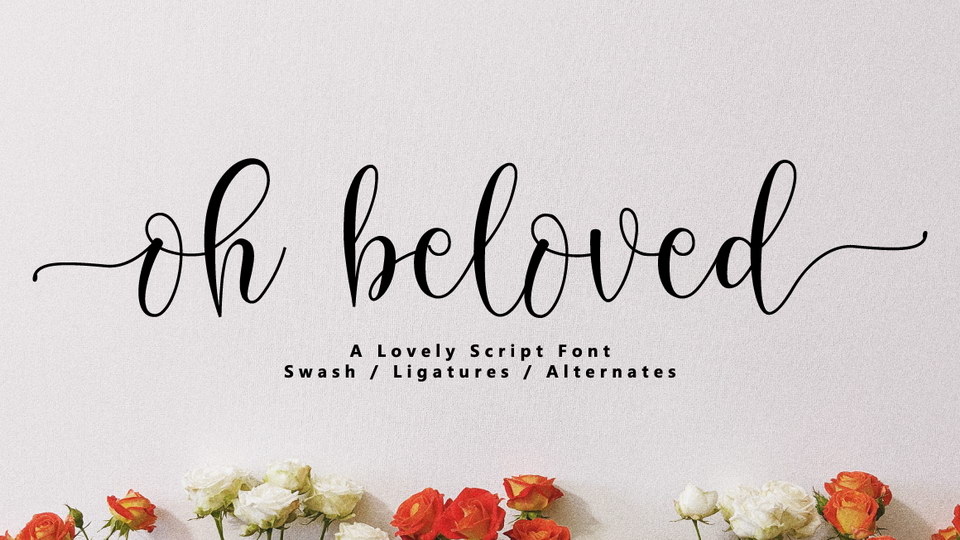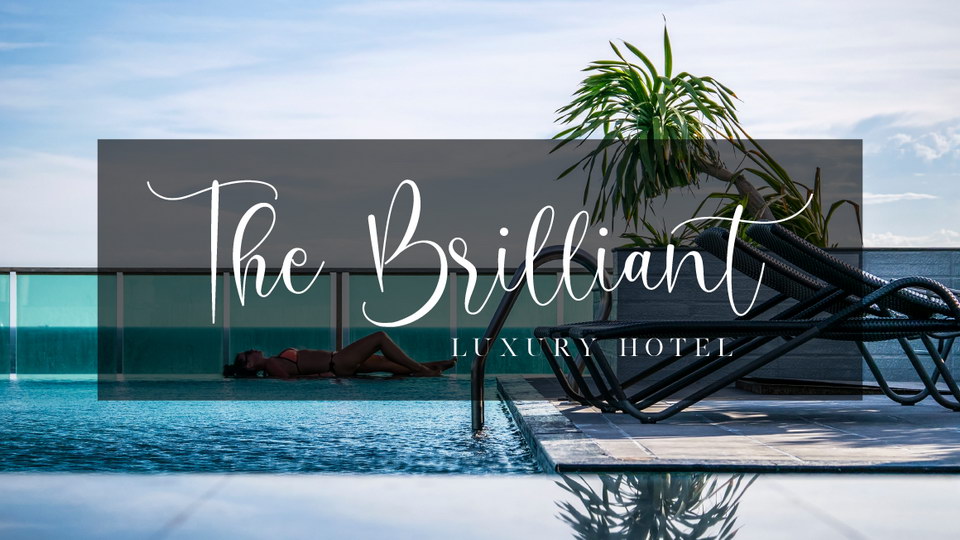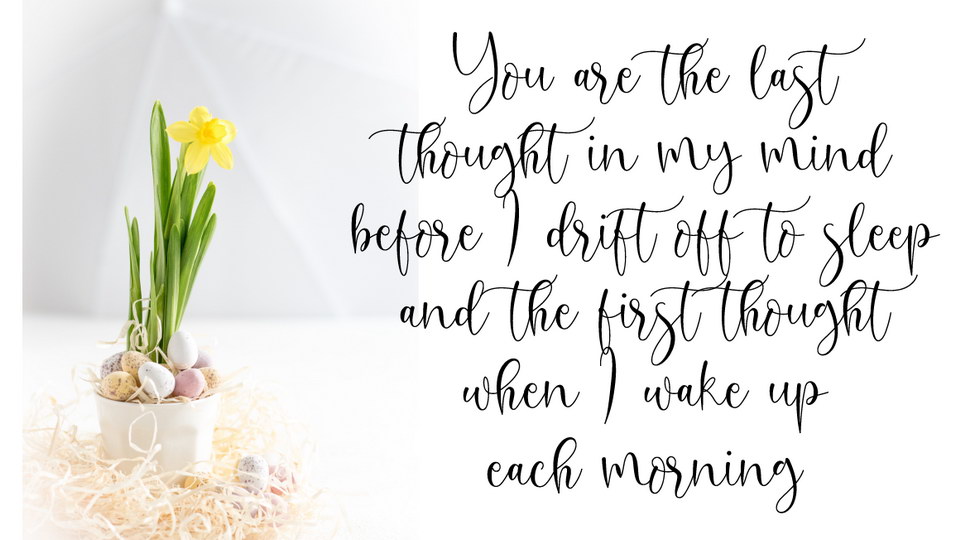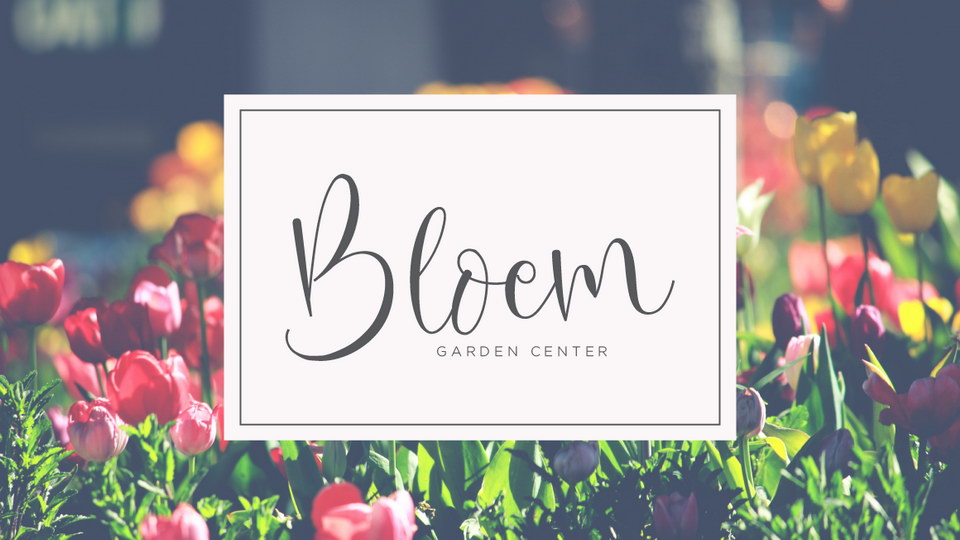
Oh Beloved is a classy modern calligraphy script with an elegant swashes.
Oh Beloved font can be used for logos, branding, invitations, stationary, wedding designs, social media posts, and every other design which needs a handwritten touch.